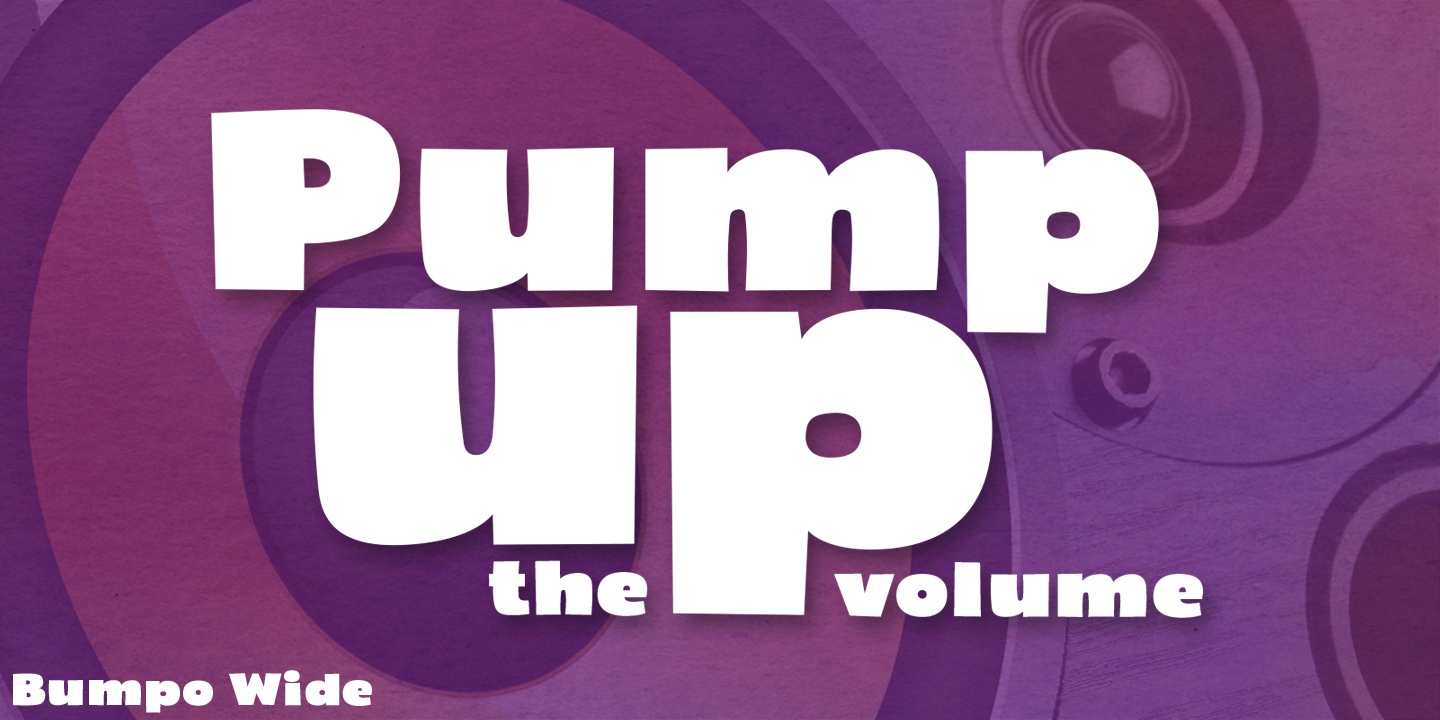
Bumpo Font
Bumpo Font is perfect for playful children's brand logos, fun family entertainment venues, bouncy toy company signage, cheerful kids' party supplies, energetic playground equipment graphics, lively children's app interfaces, vibrant daycare center materials, exciting youth sports league branding, dynamic children's clothing labels, and joyful family festival advertising. This exuberant typeface excels in applications where boundless energy, infectious fun, and child-like enthusiasm are fundamental brand characteristics.
What makes Bumpo Font exciting is its irrepressible bounce and energy that perfectly captures the unstoppable enthusiasm and pure joy of childhood through dynamic letterforms that seem to leap off the page with infectious excitement. The font features playfully rounded character construction with energetic proportions and lively details that immediately convey movement, fun, and the kind of boundless energy that makes children laugh and adults smile. Its spirited personality makes it perfect for brands that celebrate the pure joy and natural exuberance that children bring to every experience.
The Bumpo Font family typically includes Regular and Bold weights, often accompanied by extra-bouncy variations with enhanced dynamic characteristics and playful ligatures that add natural movement and energetic flow. Many versions include fun symbols designed for children's entertainment, including bouncing balls, stars, and cheerful decorative elements that amplify the high-energy aesthetic. Some collections include outline variations and dynamic effects that maximize the bouncy, energetic quality for display applications and children's media.
Whether you're creating brand identities for children's entertainment companies, designing materials for active family experiences, or developing content that celebrates the boundless energy and infectious joy of childhood, Bumpo Font Free Download provides the authentic energetic character that resonates with active children and families seeking fun, engaging experiences. Its dynamic presence makes it ideal for businesses focused on creating high-energy entertainment and activities that channel children's natural enthusiasm into positive, healthy outlets. The font's ability to convey both exciting energy and safe fun makes it particularly valuable for children's entertainment venues, active play centers, and family-focused brands seeking to attract families who want their children to experience the pure joy of active play while building confidence, friendship, and lasting happy memories.